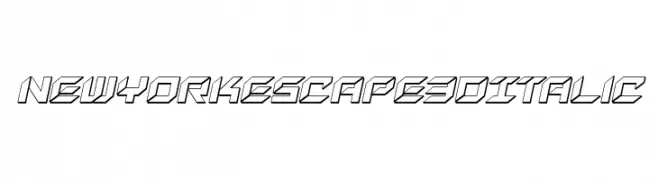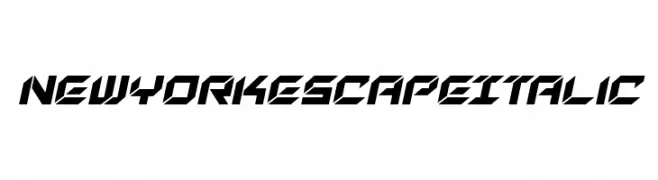
A bold, italicized font with angular, futuristic design.
A bold, geometric font with a 3D effect and sharp angles.
A bold, italic, 3D geometric font with sharp, angular outlines.